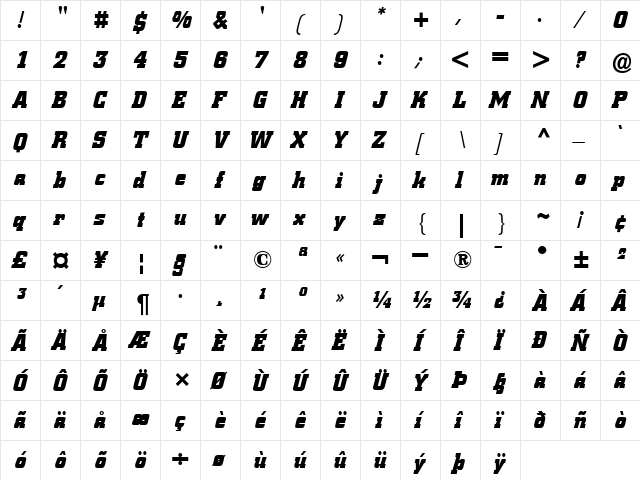
BertholdCity BoldItalic Font Preview
Design Context for BertholdCity Typeface
BertholdCity takes a measured approach to typography — its balanced proportions and neutral character make it a reliable workhorse for both digital and print work. Its italic angle brings a sense of urgency and motion to the letterforms. Its bold stroke weight gives it real presence on the page.